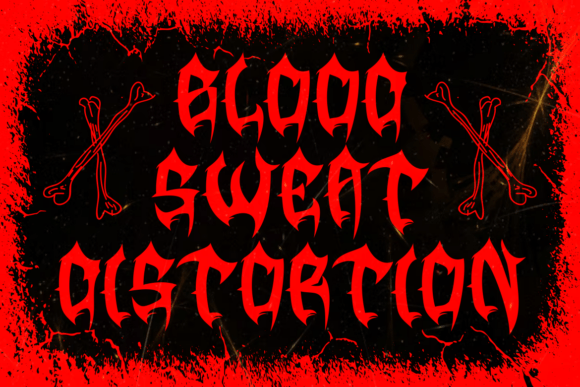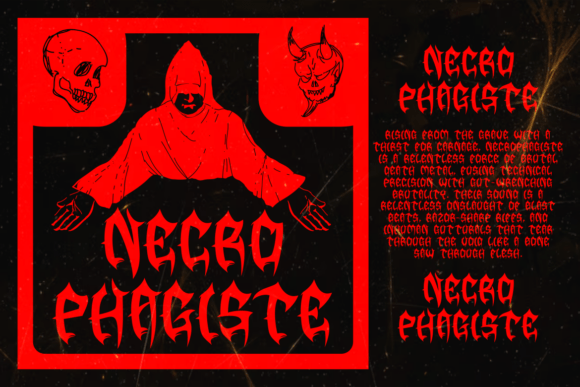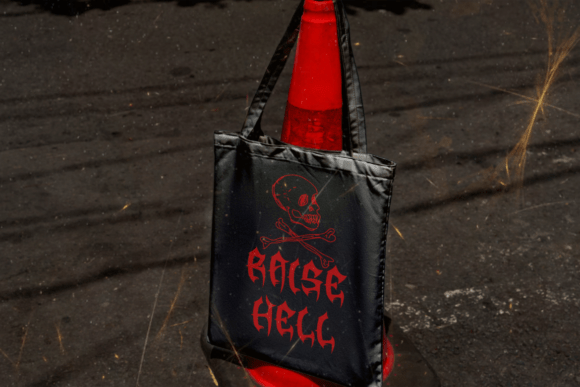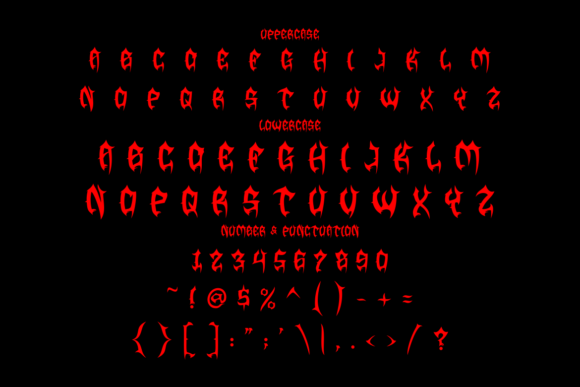
Introduction to Rusty Gore Font
Unleash the power of Rusty Gore – Metal Font, a bold and aggressive typeface designed for heavy metal, death metal, and gothic-themed designs.
This sharp, jagged, and spiked display font is inspired by the dark and rebellious energy of extreme metal culture With its razor-edged letterforms and intense gothic-inspired curves, Rusty Gore brings a raw and chaotic vibe, perfect for band logos, album covers, horror posters, and underground branding.